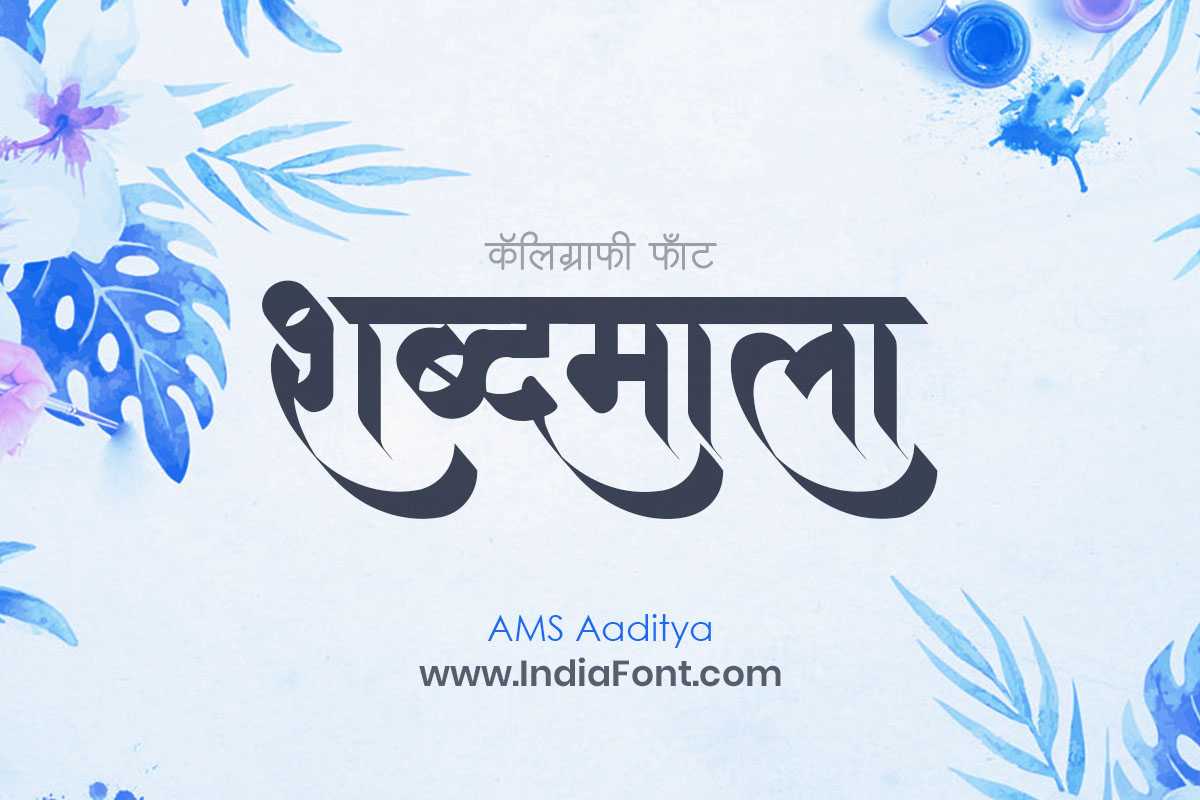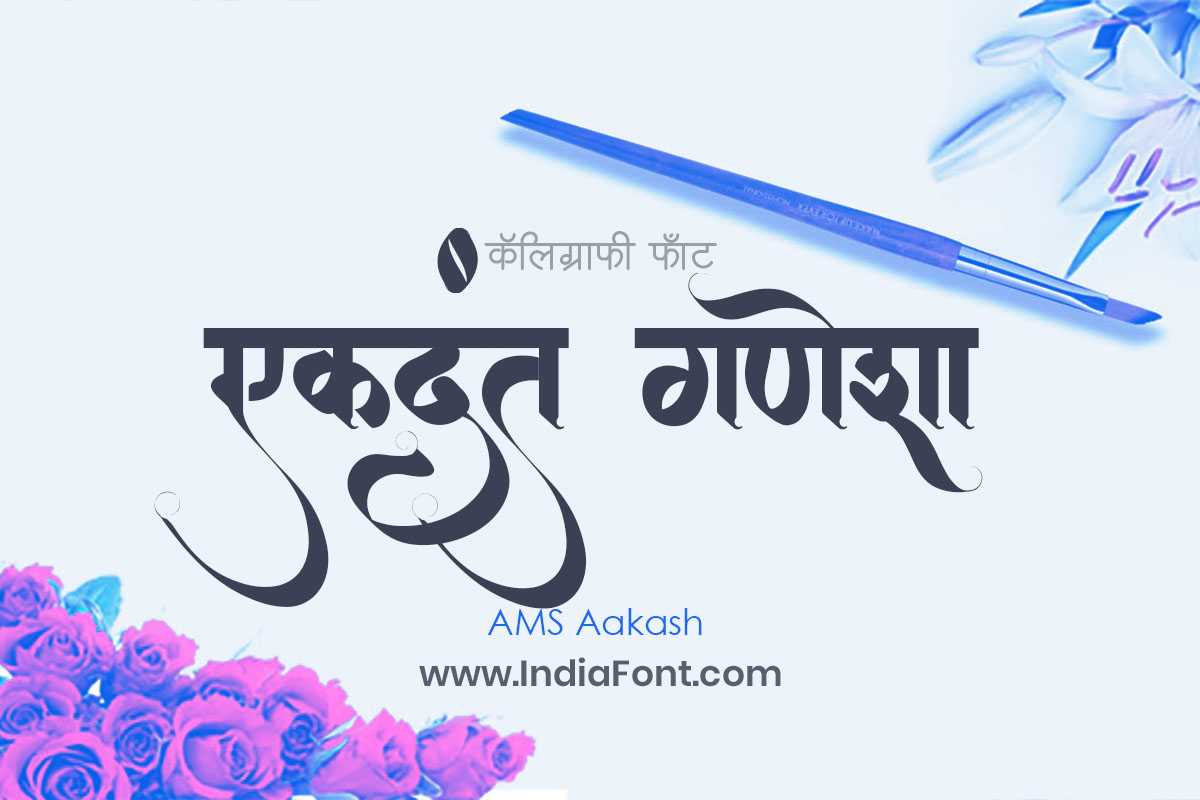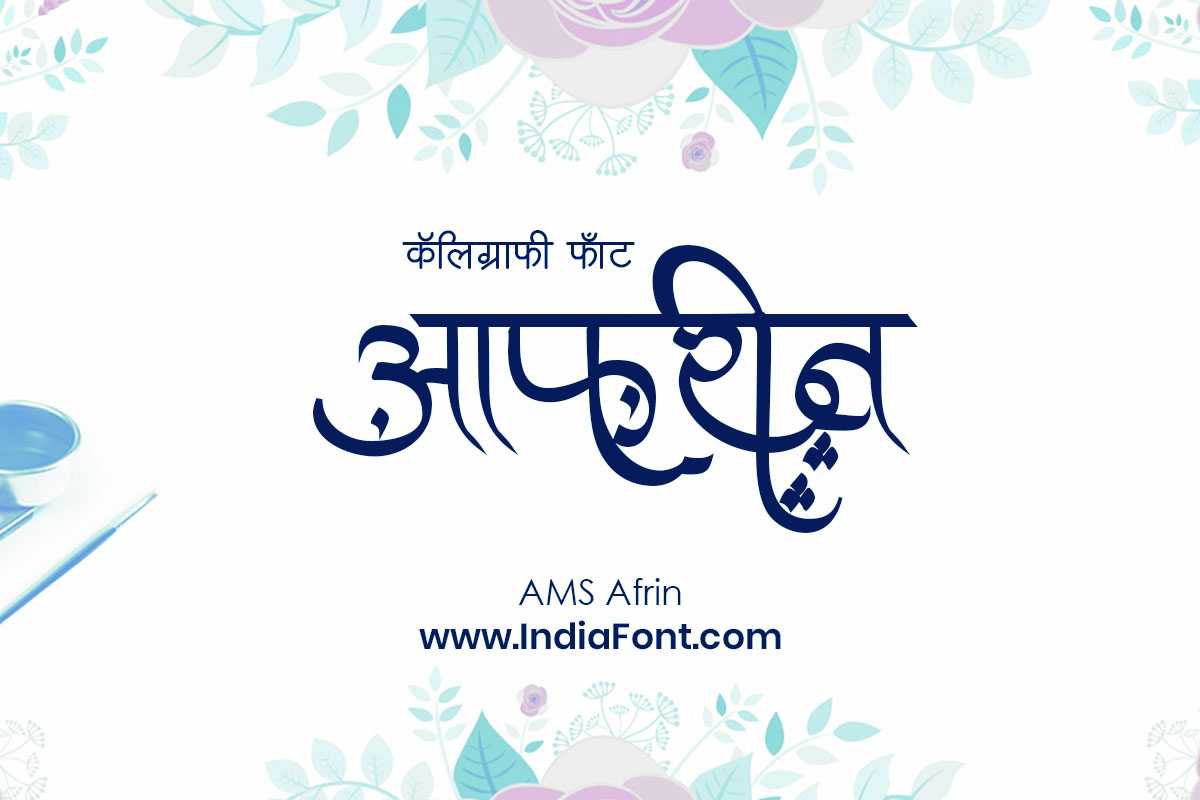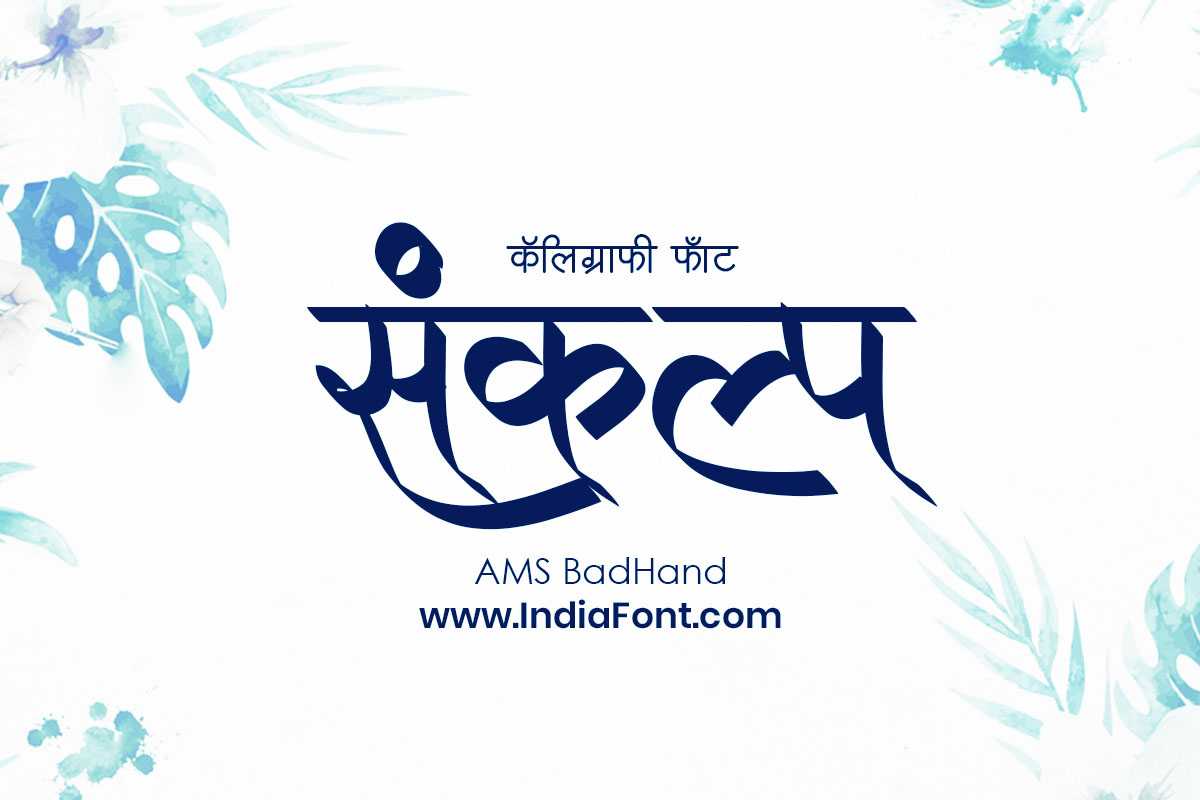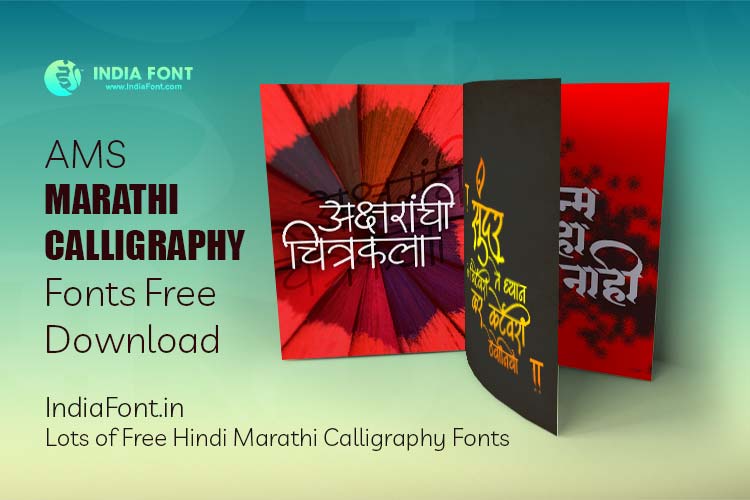
Download free AMS Marathi calligraphy fonts for beautiful Marathi typography designs. Complete collection of artistic calligraphy fonts with traditional Marathi script elegance.
When it comes to adding an artistic touch to your Marathi designs, the right calligraphy font can make all the difference. That's where AMS Marathi Calligraphy Fonts step in. These fonts, meticulously crafted by skilled designers, bring elegance and sophistication to your creative projects. The best part? You can now access AMS Marathi Calligraphy Fonts for free download, giving you the opportunity to enhance your designs with a unique and expressive flair.
Artistic Excellence
Meticulously crafted fonts that capture the true essence of Marathi calligraphy and traditional script beauty.
Authentic Script
Each curve and stroke carefully designed to maintain the authenticity of Devanagari writing traditions.
AMS Marathi Calligraphy Collection
Premium AMS Marathi Calligraphy Fonts:
Elegant calligraphy font with refined strokes perfect for formal Marathi documents
Calligraphy
Artistic calligraphy font with decorative elements ideal for creative designs
Calligraphy
Classic calligraphy font with traditional Marathi script characteristics
Calligraphy
Modern calligraphy font blending contemporary style with traditional beauty
Calligraphy
Earth-inspired calligraphy font with natural flowing characteristics
Artistic
Handwritten style font that mimics natural pen-and-paper writing
Handwritten
Graceful calligraphy font with delicate curves and feminine elegance
Elegant
Sky-inspired calligraphy font with airy and light characteristics
Artistic
Expansive calligraphy font representing the vastness of the sky
Modern
Sun-inspired calligraphy font with radiant and bold characteristics
BoldAMS Marathi Font: Adding a Distinctive Flair
AMS Marathi Fonts are more than just letters; they are a form of artistic expression. Each curve and stroke is carefully designed to capture the essence of the Marathi script, infusing your projects with authenticity and beauty. Whether you're creating invitations, banners, social media graphics, or any other design, AMS Marathi Fonts offer a range of styles that cater to various preferences and aesthetics.
Authentic Marathi Typography
Experience the beauty of traditional Devanagari script with modern digital convenience. Our AMS fonts preserve the cultural heritage while providing contemporary design flexibility.
With the convenience of digital platforms, accessing and incorporating AMS Marathi Fonts into your designs is now easier than ever. AMS Marathi Font download opens the doors to a world of creative possibilities. You no longer need to limit yourself to standard fonts; instead, you can elevate your designs with the rich and diverse collection of AMS Marathi Fonts. The process is seamless, allowing you to quickly integrate these fonts into your preferred design software.